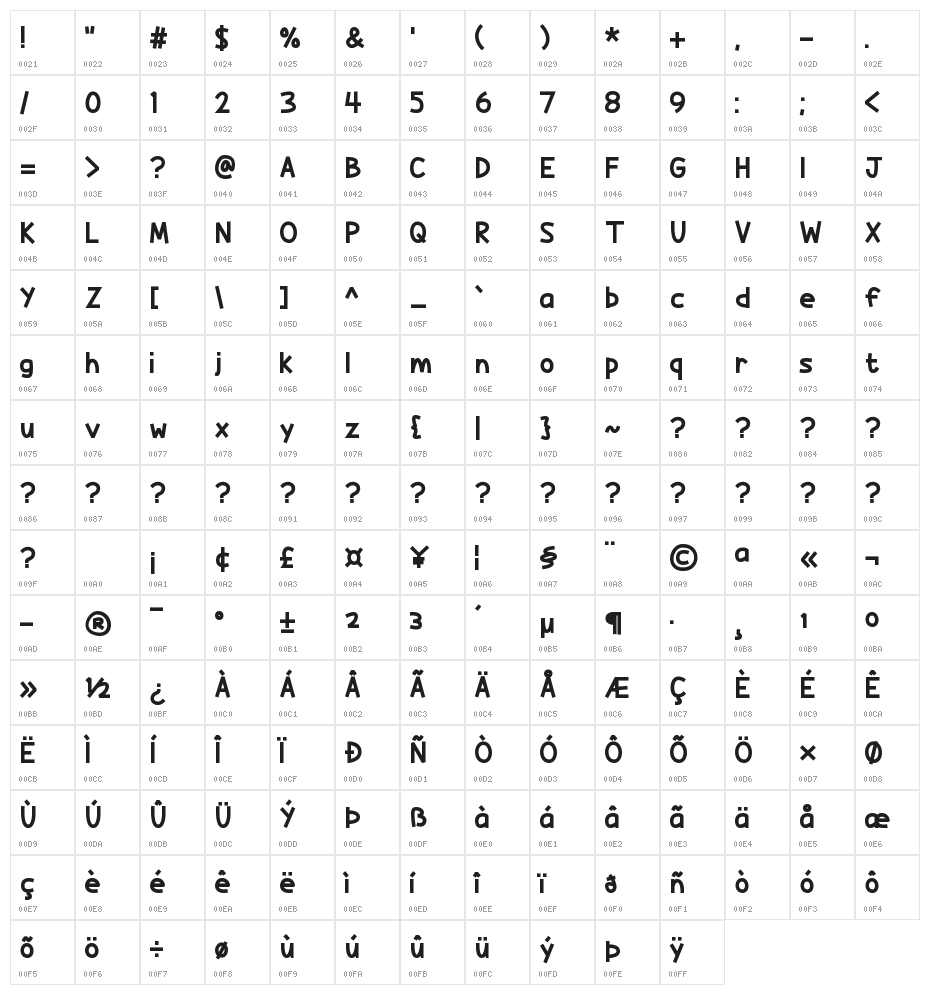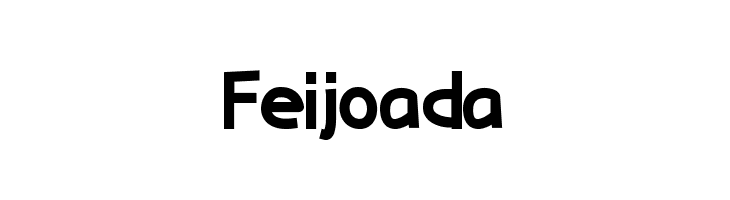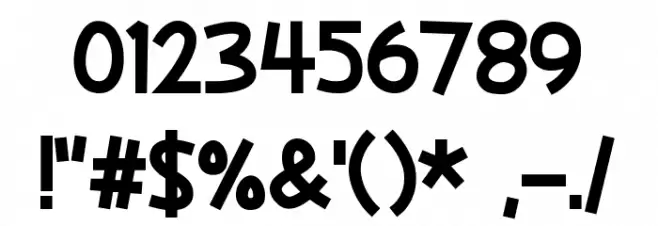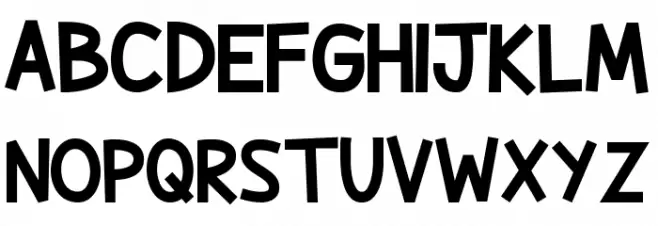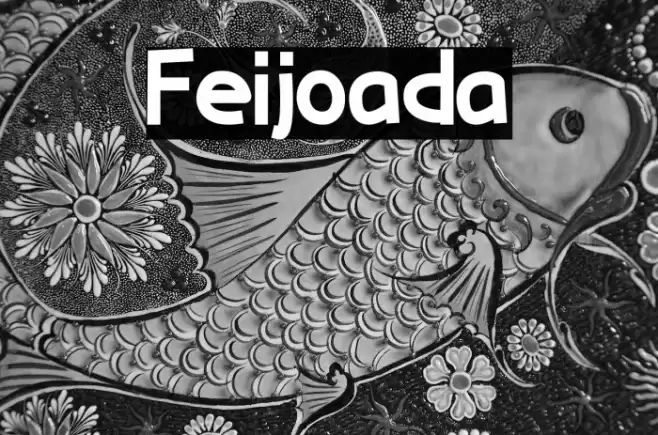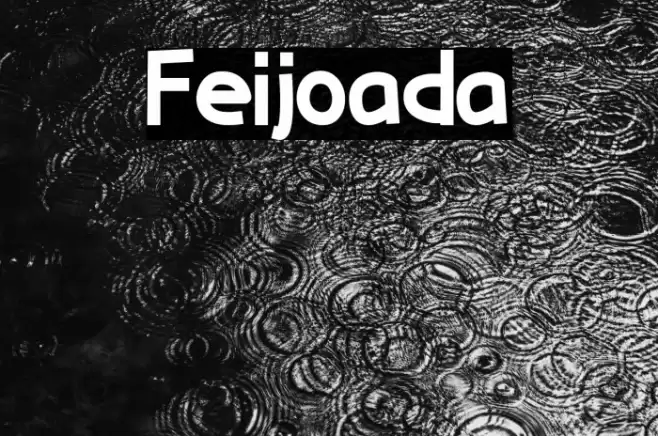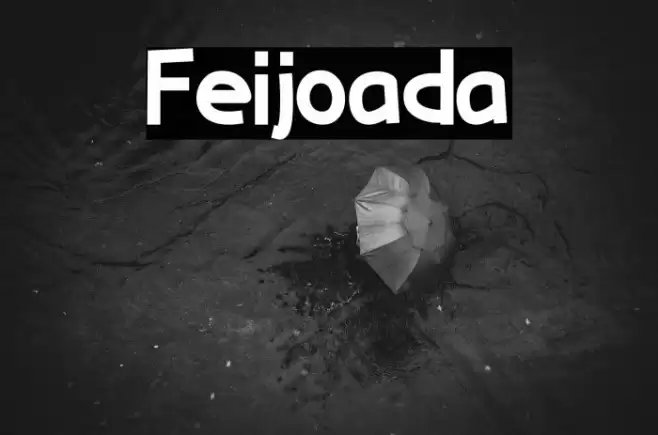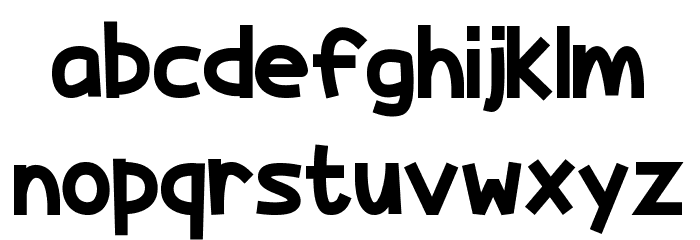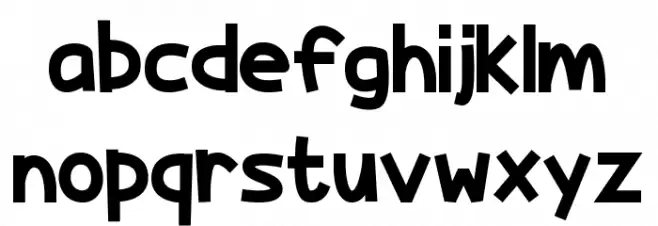
Feijoada Font
| Gesamtstil | Playful, Casual |
| Anwendungsfall | Headlines, Logos, Informal Text |
| Vorgeschlagene Projekte | Ideal for children's books, comic strips, playful branding, and casual event invitations. |